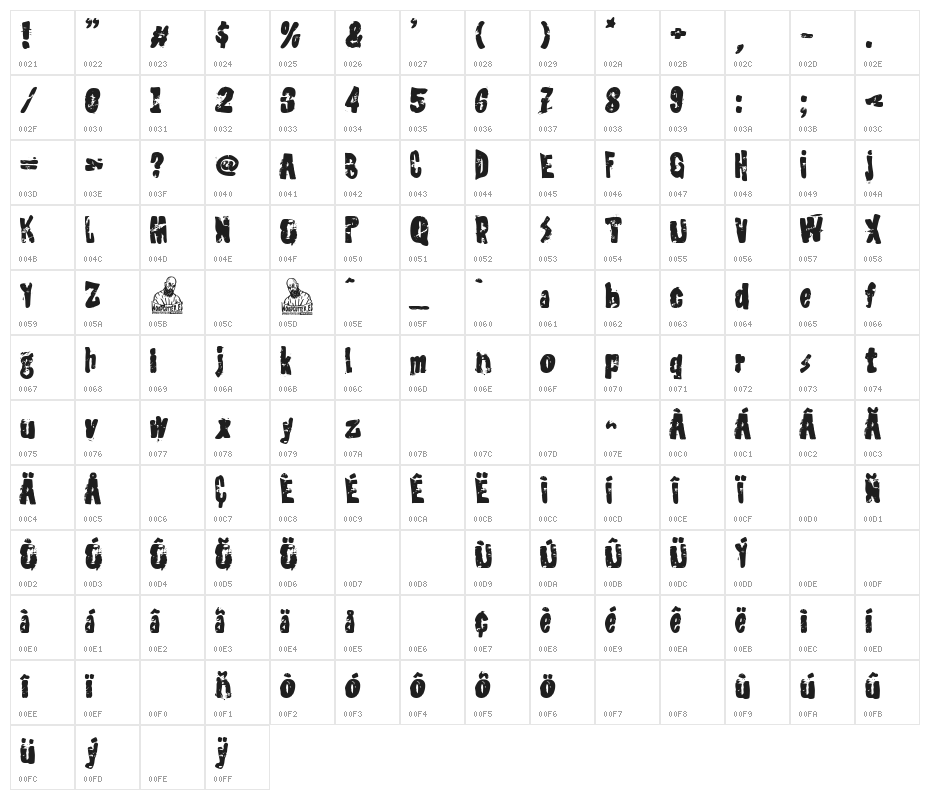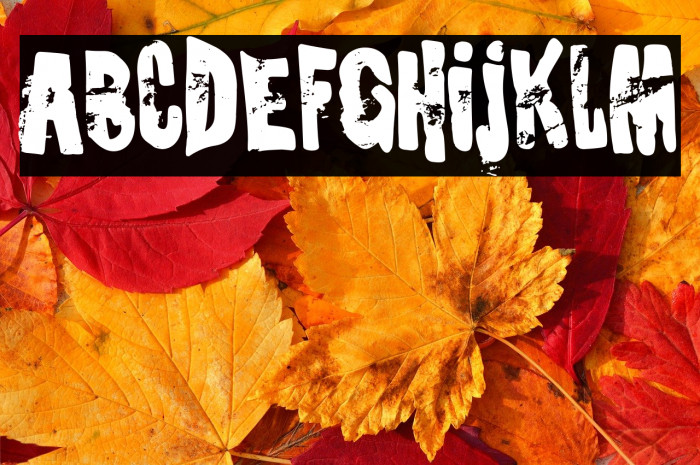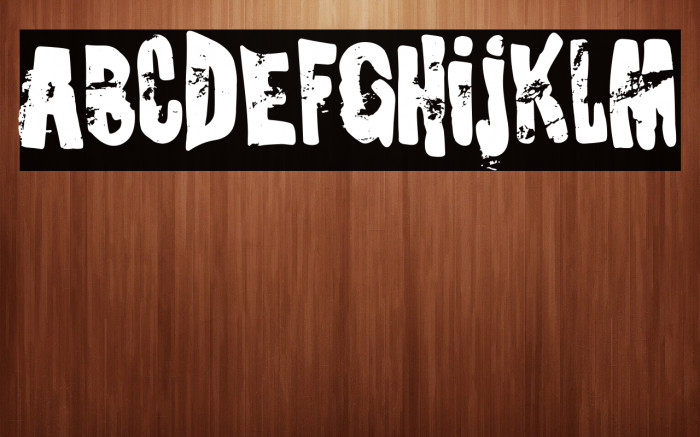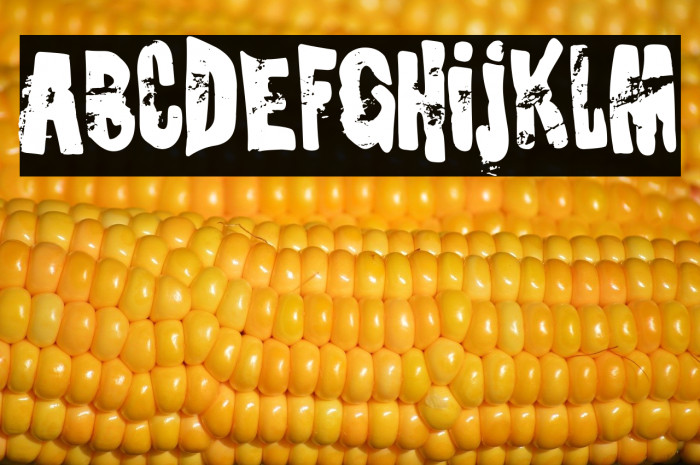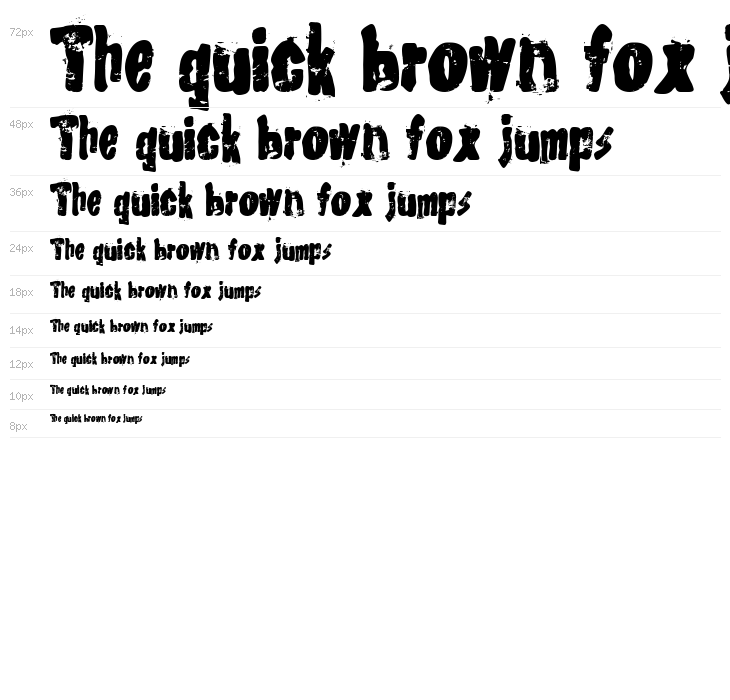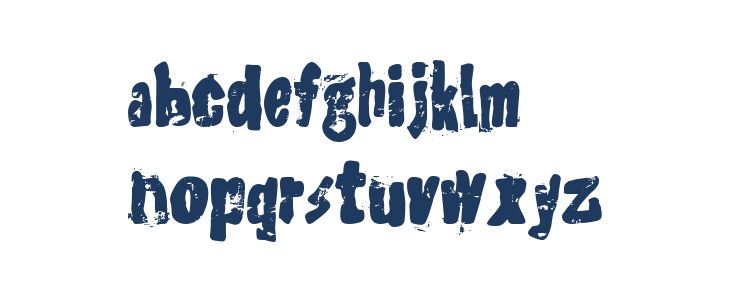
Social Crisis Font
Social Crisis Description
This font features a bold, distressed style with a grunge aesthetic. The characters are heavily textured, giving them a worn and rugged appearance. Each letter appears to have been eroded or splattered, adding to the chaotic and rebellious vibe. The uppercase and lowercase letters maintain a consistent style, with rounded edges and uneven surfaces. Numbers and special characters follow the same distressed pattern, ensuring a cohesive look across all elements. This font is designed to stand out and make a statement, perfect for projects that require a bold and unconventional look.
| Overall Style | Grunge, Rebellious |
| Use Case | Headlines, Posters, Branding |
| Proposed Projects | Ideal for album covers, posters, streetwear branding, or any project needing a rebellious and edgy look. |